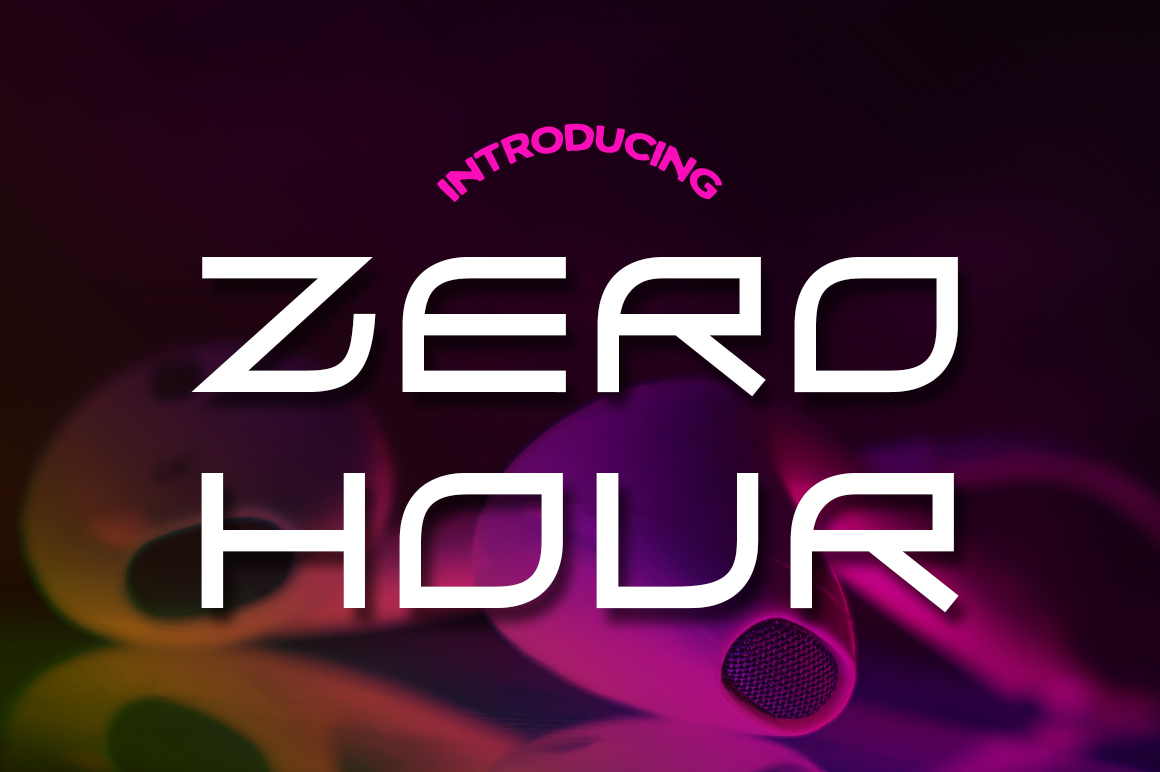
HomePersonal Use FreeZero Hour Personal Use Free Zero Hour FacebookXPinterestWhatsApp 1 of 1 About Zero Hour Font Zero Hour is an all caps sans serif outstretched digital font, perfect for techno themed displays. This 90s inspired decorative free font was created by Typodermic. DOWNLOAD NOW People also explored Manchester Park Font Mondevilla Font Formula a Font Sunday Font Business Signature Font Korolev Condensed Pro My Boy Font Amarllis Font Sensly Dhanies Font 509 0 TagsZero Hour Font Previous articleUrkelianNext articleBarbatrick LEAVE A REPLY Cancel reply Comment: Please enter your comment! Name:* Please enter your name here Email:* You have entered an incorrect email address! Please enter your email address here Website: Save my name, email, and website in this browser for the next time I comment. Personal Use Free Simple Personal Use Free Read more about this font Party Pooper Personal Use Free Read more about this font Bettari Personal Use Free Read more about this font Pompom Personal Use Free Read more about this font BLOG Free Fonts Risk: Why Free Fonts Can Be Dangerous for Designers Free Fonts Risk: Why Free Fonts Can Be Dangerous for Designers Using free fonts is a common practice in web and graphic design. However, the... Elegant Wedding Invitation Fonts – Handwritten & Script Fonts To increase your work productivity, choose the most readable fonts. Top 7 Google Fonts Alternatives for Faster and Privacy-Friendly Web Design (2025)